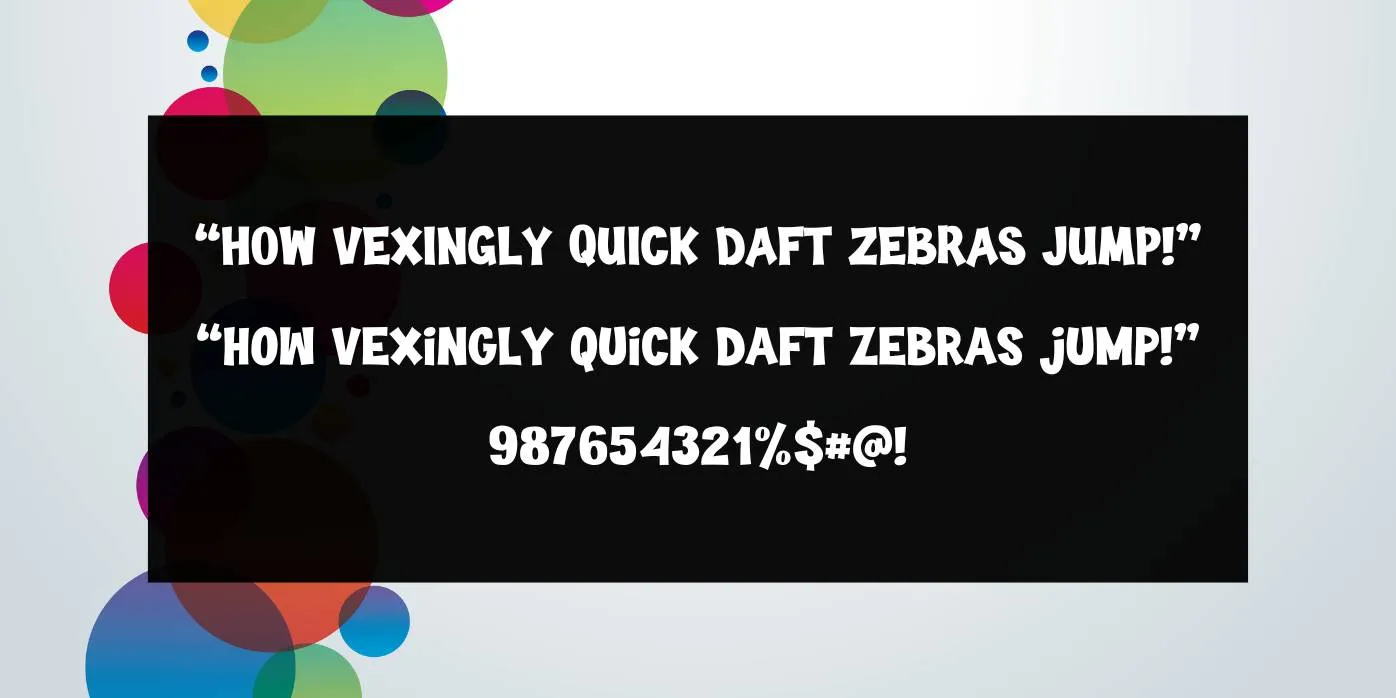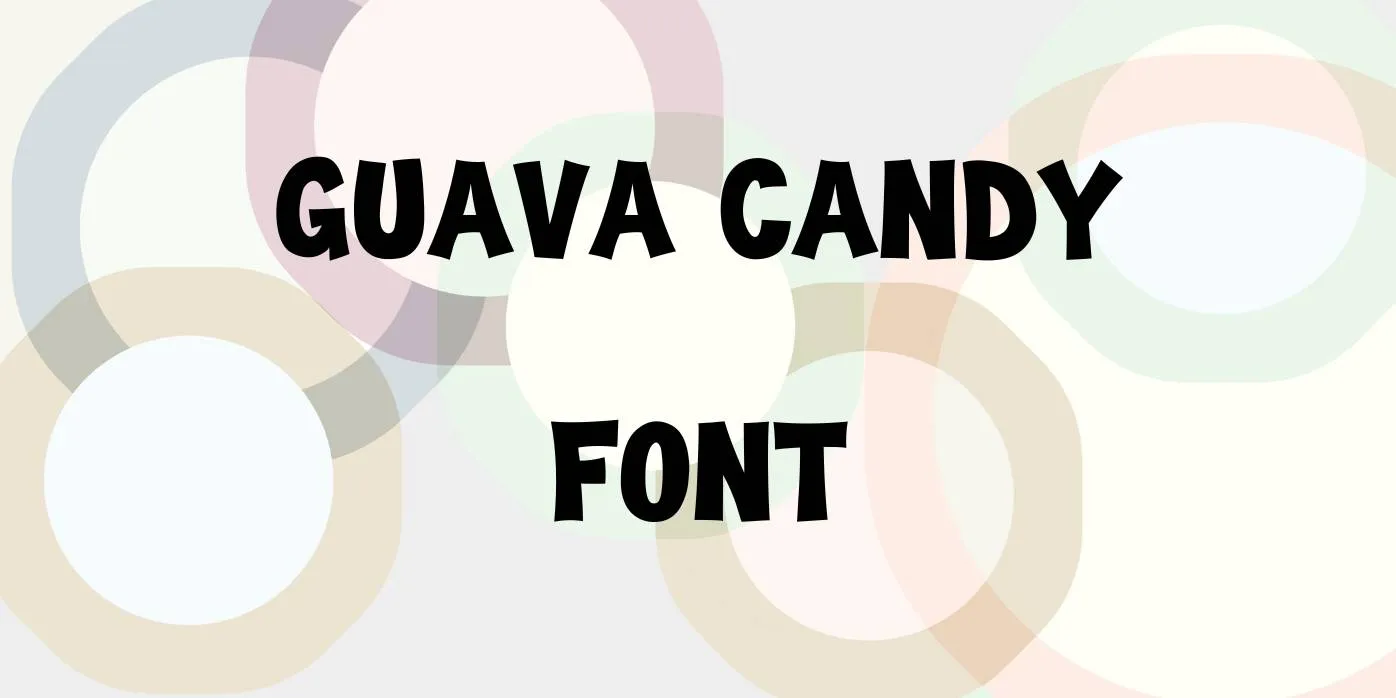
Guava Candy Font
Today, I am going to write about the cartoon type of font. Guava Candy Font is a cartoon type of font. Tokokoo Studio is the designer of this typeface. There is only one regular style of this typeface.
The glyphs for this texture are 108 in number. The characters of this typeface are bold, classic, clear, and highly readable. The online generator tool for this typeface is also available. You can use this tool to generate your text in this typeface.